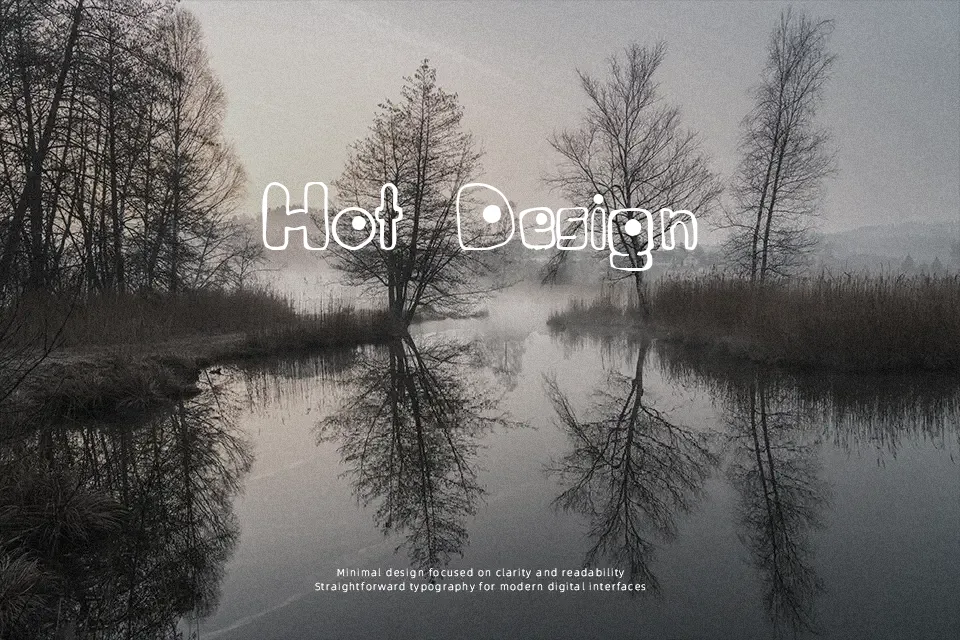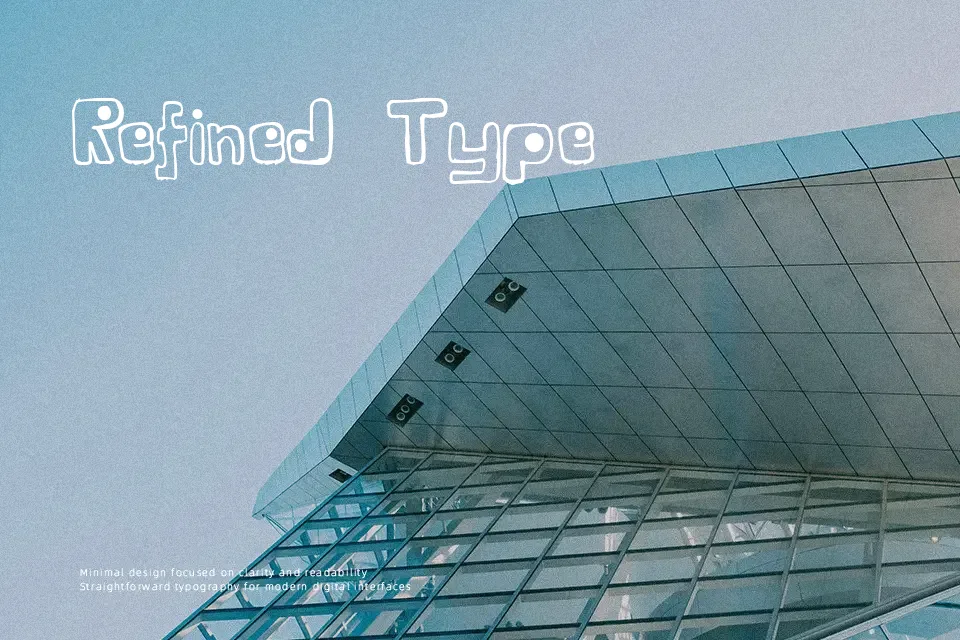
Ugly R Font
Designed by Ana Šparavec
Built with irregular, bulbous outlines and deliberate asymmetry, Ugly R Font establishes an energetic hand-drawn appearance reminiscent of casual doodle art. Each glyph presents heavy, low-contrast boundary strokes with rounded terminals and slightly uneven interior counters. The character spacing is comparatively loose, which prevents adjoining shapes from clashing while maintaining a bouncy rhythmic flow along the baseline. Due to its exaggerated contours and casual proportions, the typeface excels across children’s book titles, cartoon animations, and casual restaurant menus. However, these playful distortions substantially impair legibility when rendered at small point sizes, making the letterforms ineffective for multi-line paragraphs or dense editorial settings where disciplined uniformity is essential.
Best For: children’s book titles, comic strip headlines, youth apparel graphics, casual snack packaging
Not Ideal For: continuous paragraph reading, corporate financial reports, technical documentation, mobile app interface labels